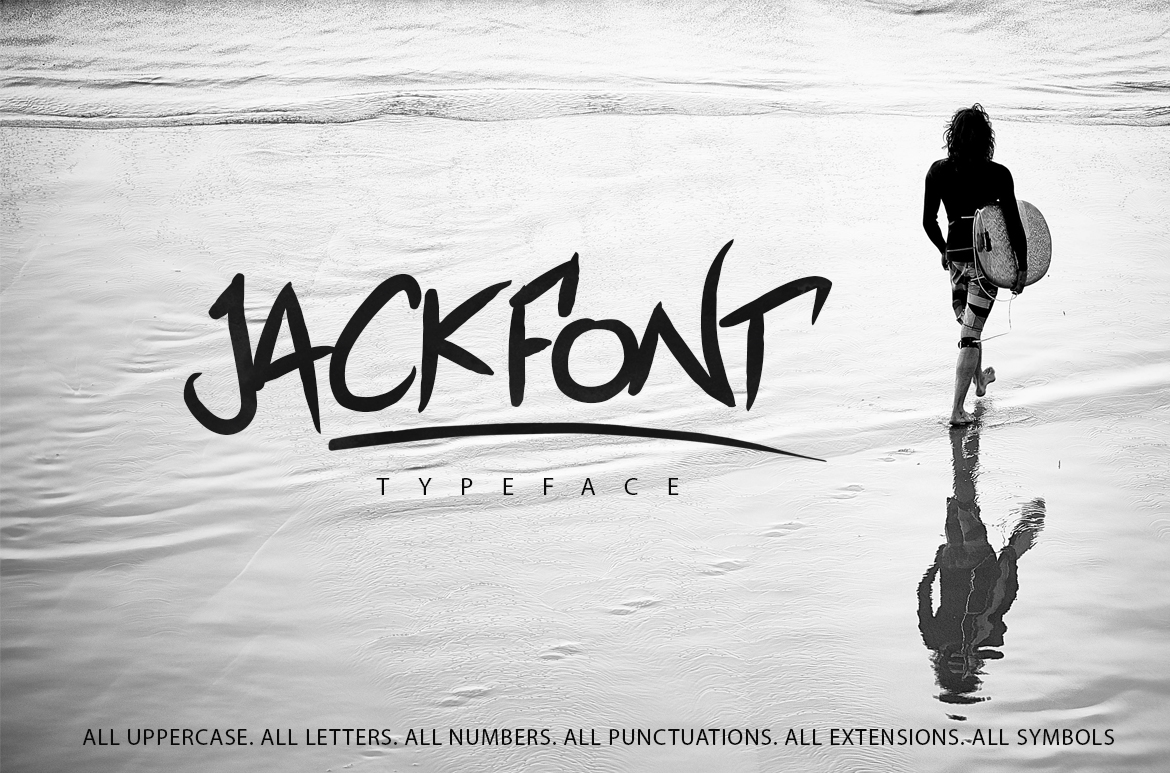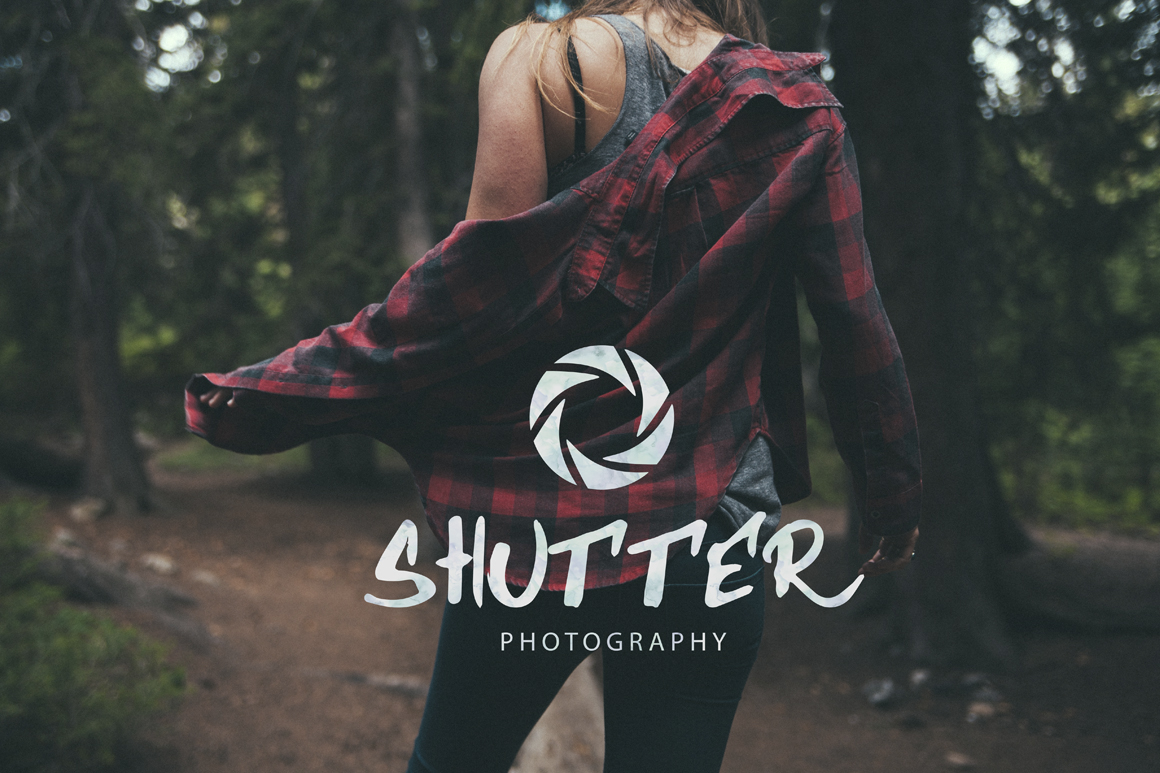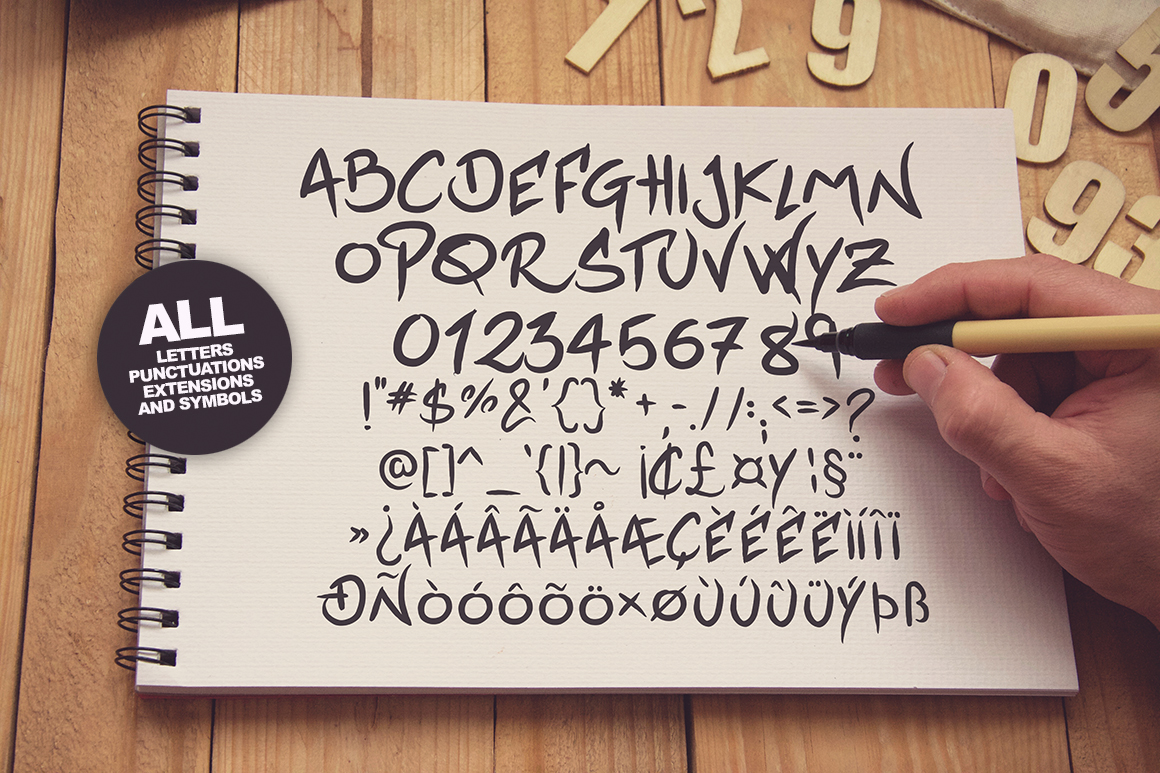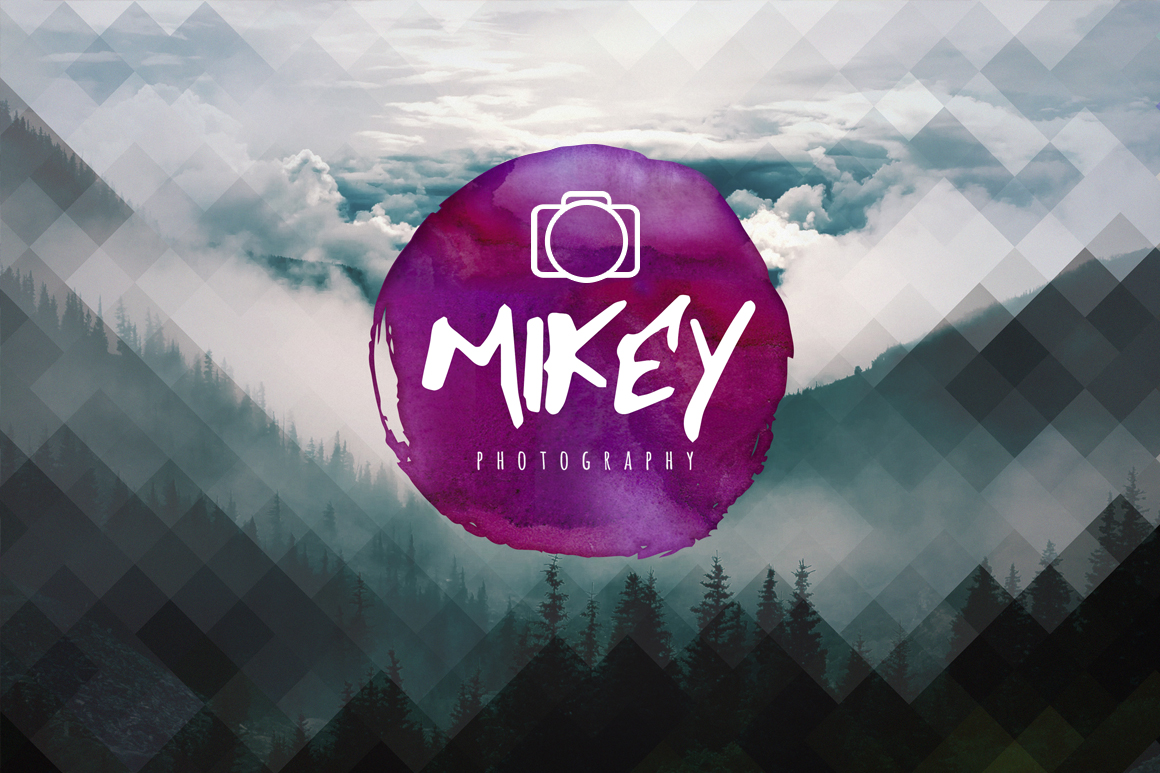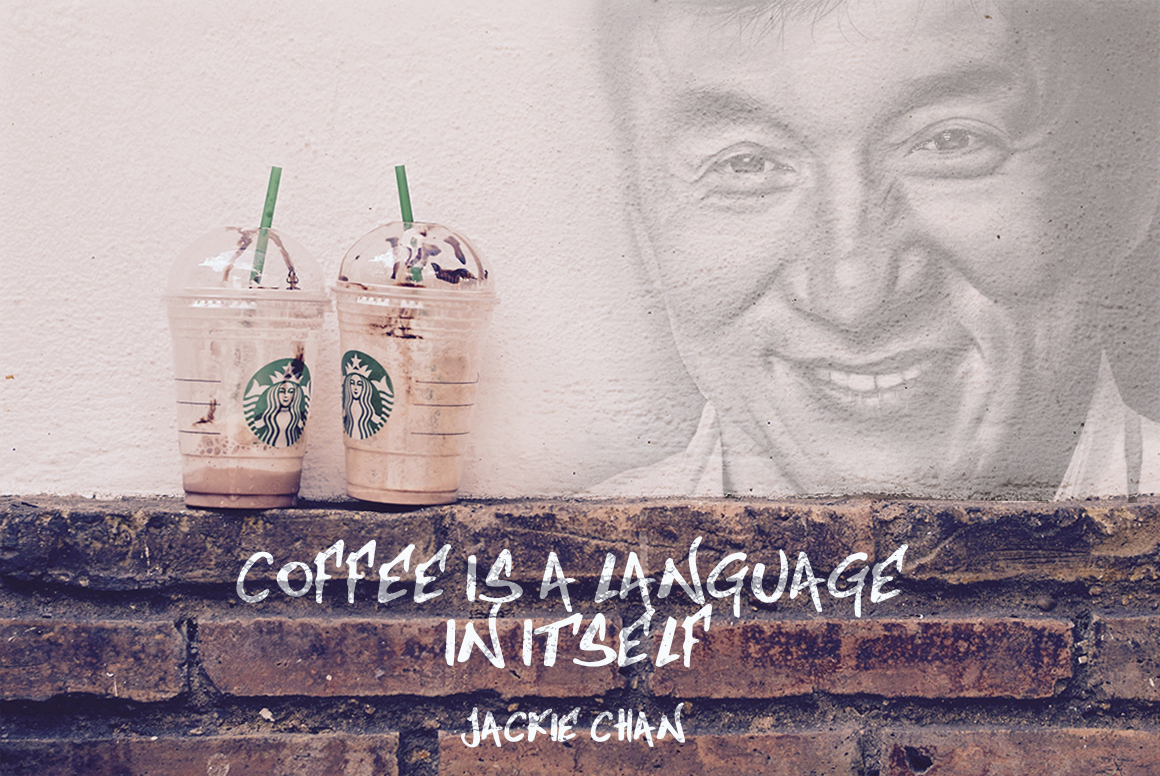
Jack Font
About Jack Font
Type Designer Pere Esquerrà created the beautiful Jackfont with the beach in mind.
The result is this stunning playful font.